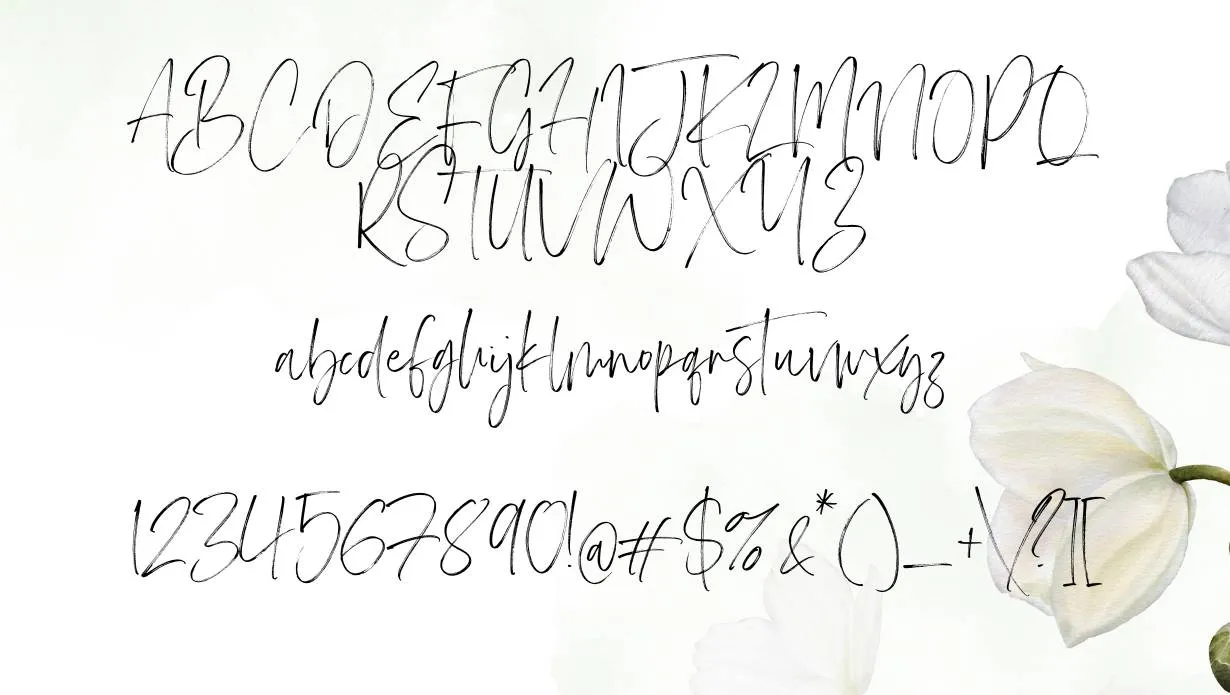
Carlinet font presents a classic and refined appearance, often utilized in formal documents, books, or vintage-themed designs. Its timeless style adds an air of tradition and sophistication to different print materials and professional settings.
| Name | Carlinet Font |
| Designer | Letteralle Studios |
Whether it’s a classic novel, a formal report, or a vintage-themed project, the Carlinet font evokes a sense of timeless elegance and tradition.